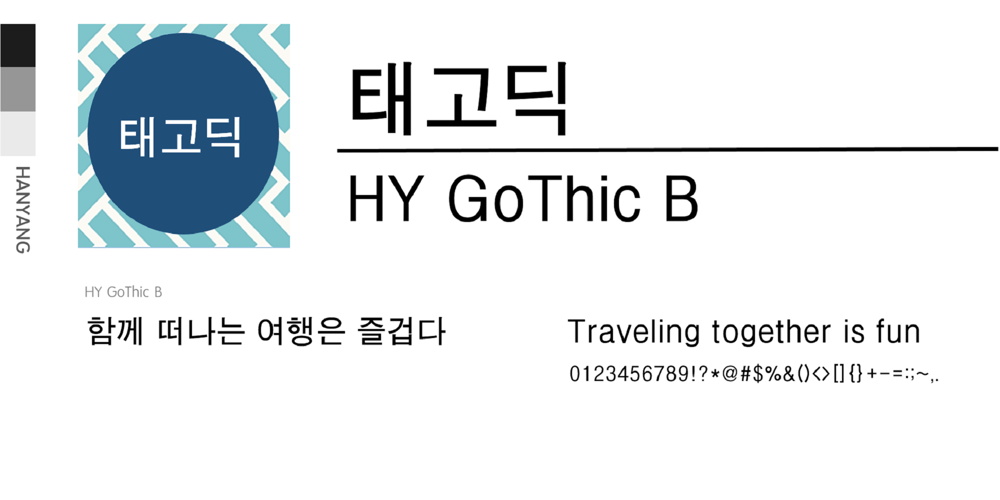
HY GoThicB
HY GoThicB font
HY GoThicB Font Family was designed by font hy and published by HY Font. HY GoThicB contains 1 styles and family package options. The modern and strong design of the HY Taegothic font is suitable for titles, emphasized text, etc.The strong feel of the HY Taegothic font can create a visual impact in advertisements, promotional materials, etc.The stroke thickness and balance are well balanced, providing excellent readability even at various sizes.